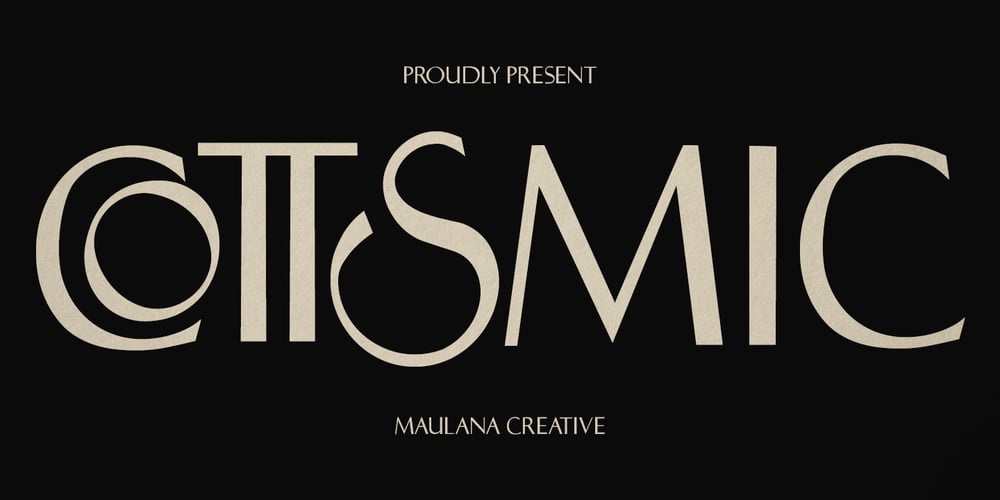
Cottsmic Font Family was designed by Gilang Maulana and published by Maulana Creative. Cottsmic contains 1 styles and family package options. Cottsmic Sans Serif Font is a contemporary sans serif font. With bold weight, unique and fun character with a bit of ligatures. To give you an extra creative work. Cottsmic Sans Serif support multilingual more than 100+ language. This font is good for logo design, Social media, Movie Titles, Books Titles, a short text even a long text letter and good for your secondary text font with script. Make a stunning work with Cottsmic Sans Serif Font.Cheers,Maulana Creative